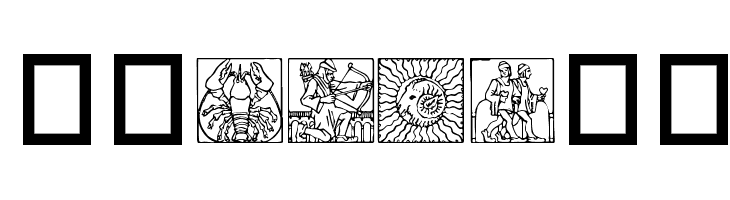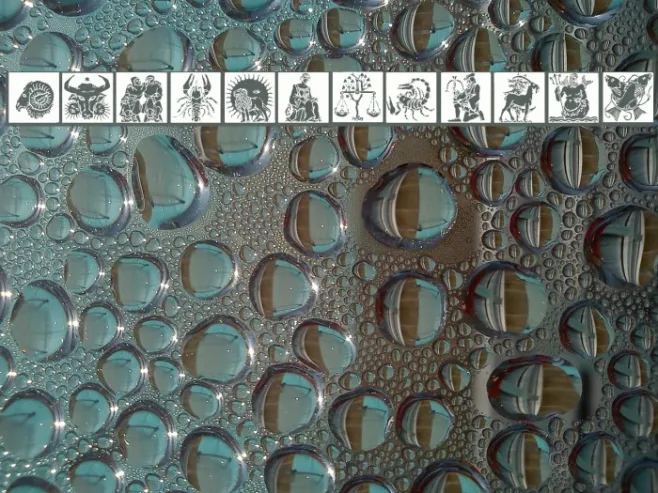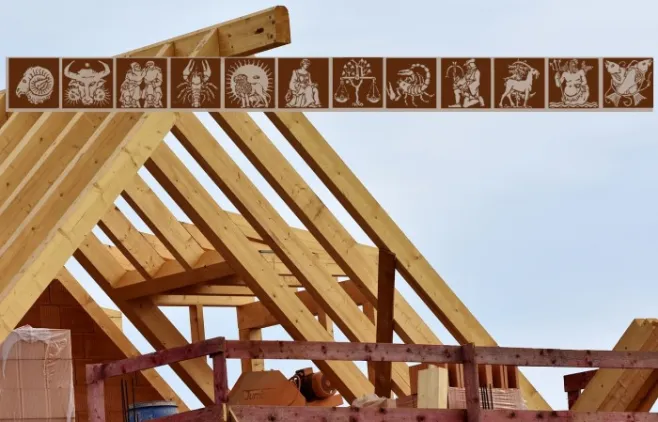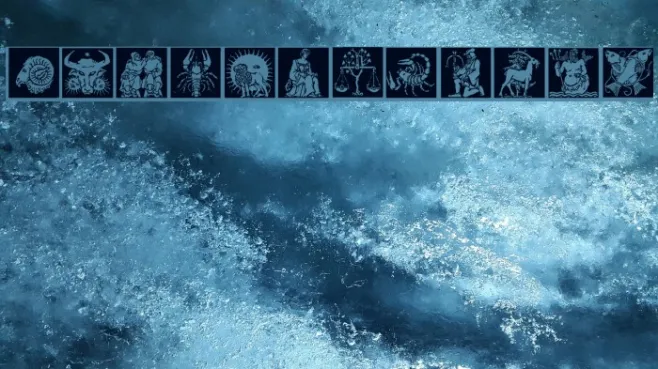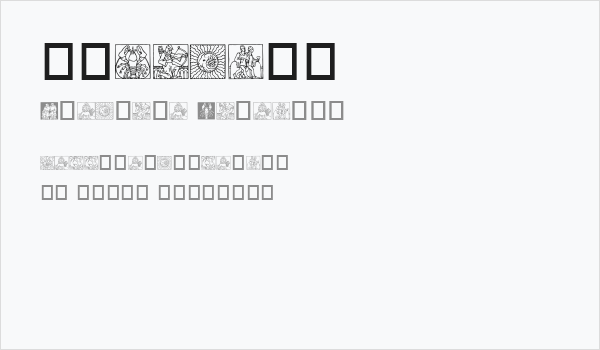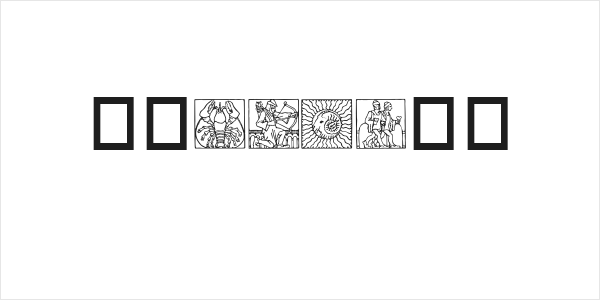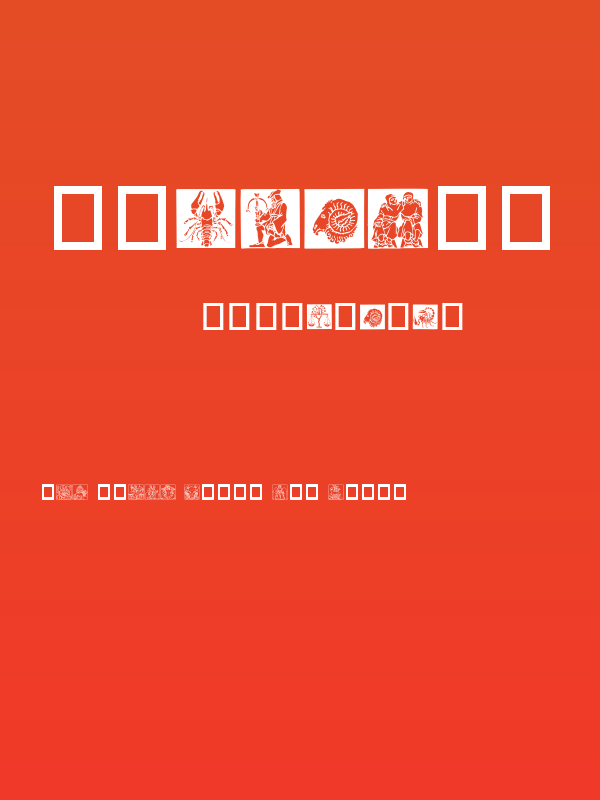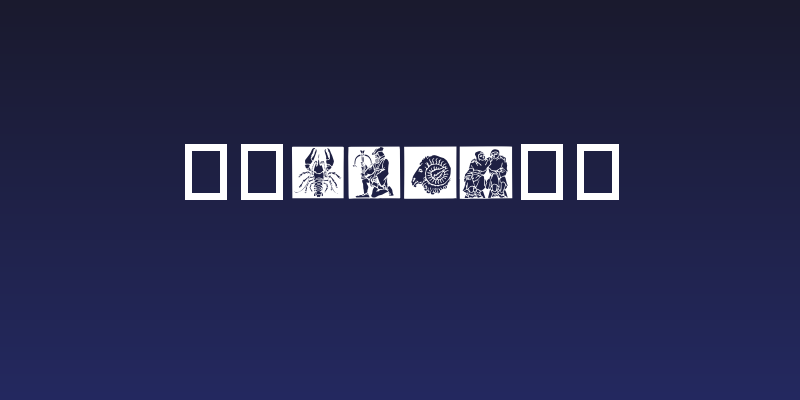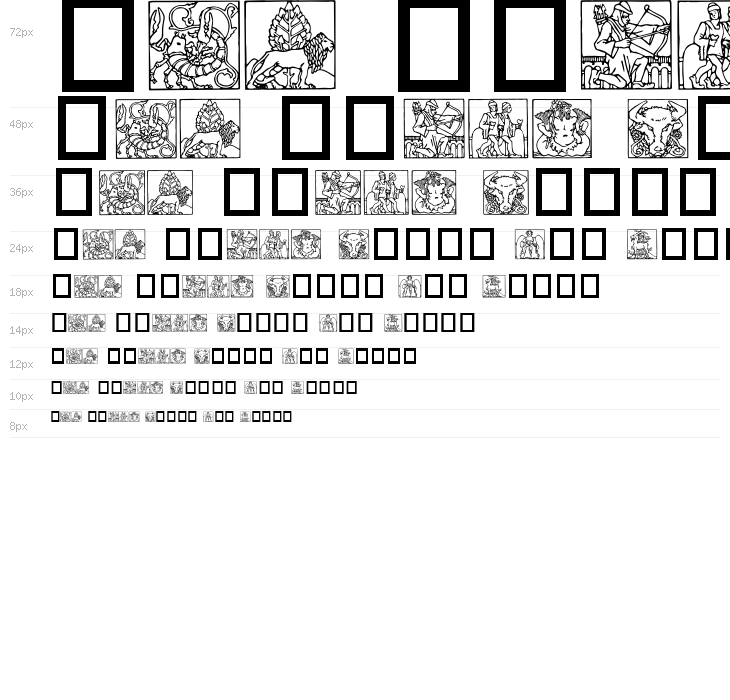
Zodiac03 Font
Zodiac03 Description
This is not a traditional font but rather a collection of zodiac-themed icons. Each character is represented by a detailed illustration of a zodiac sign, capturing the essence of each astrological symbol. The icons are intricately designed with a classic and artistic style, making them suitable for decorative purposes. They are not meant for textual representation but rather for thematic or symbolic use.
| Use Case | Logos, Decorative elements |
| Proposed Projects | Ideal for astrology-themed designs, horoscopes, decorative posters, and personalized gifts. |